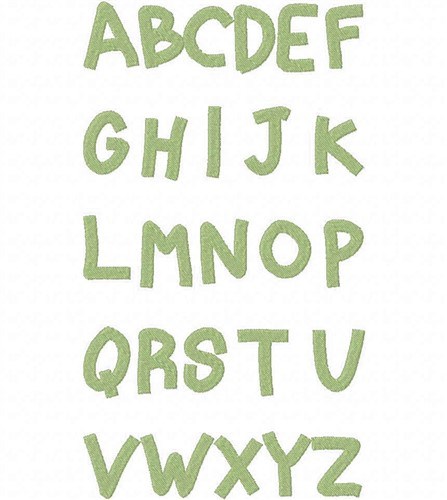
Unicorn Creatives is happy to present Preschool Font Embrilliance machine embroidery font which has Colorful and playful block letters make this machine embroidery font ideal for children's projects, such as nursery decor or educational materials. Available in BX font and Embrilliance format. included. If you would like to view more embroidery fonts and alphabets please search our embroidery fonts page.